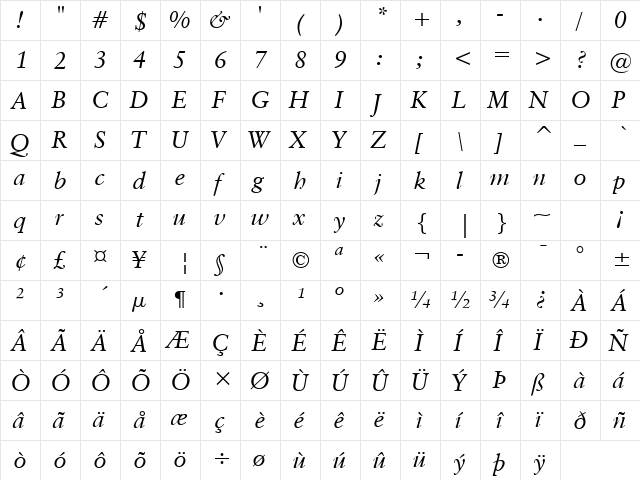
ClassGarmnd BT Italic
Design Context for ClassGarmnd BT Typeface
ClassGarmnd BT offers clean, dependable letterforms without strong stylistic allegiance, making it a practical choice for designers who need flexibility. Its italic angle brings a sense of urgency and motion to the letterforms.
Pro Tip: Try ClassGarmnd BT for annotation and caption copy alongside an upright companion — the contrast in angle creates a dynamic but ordered typographic system.